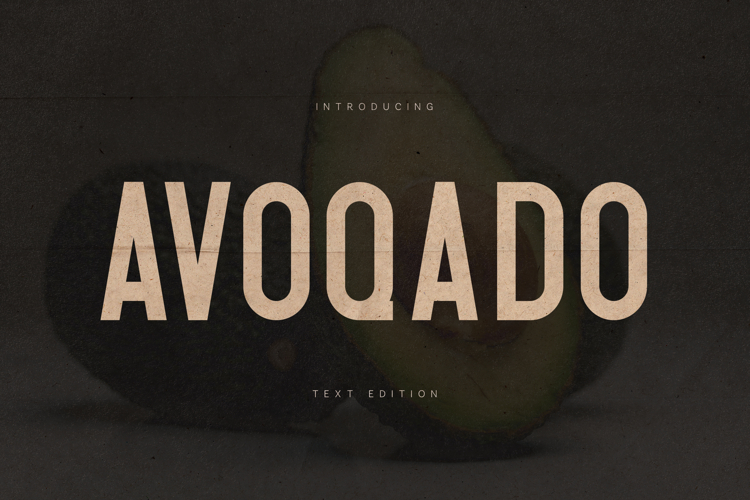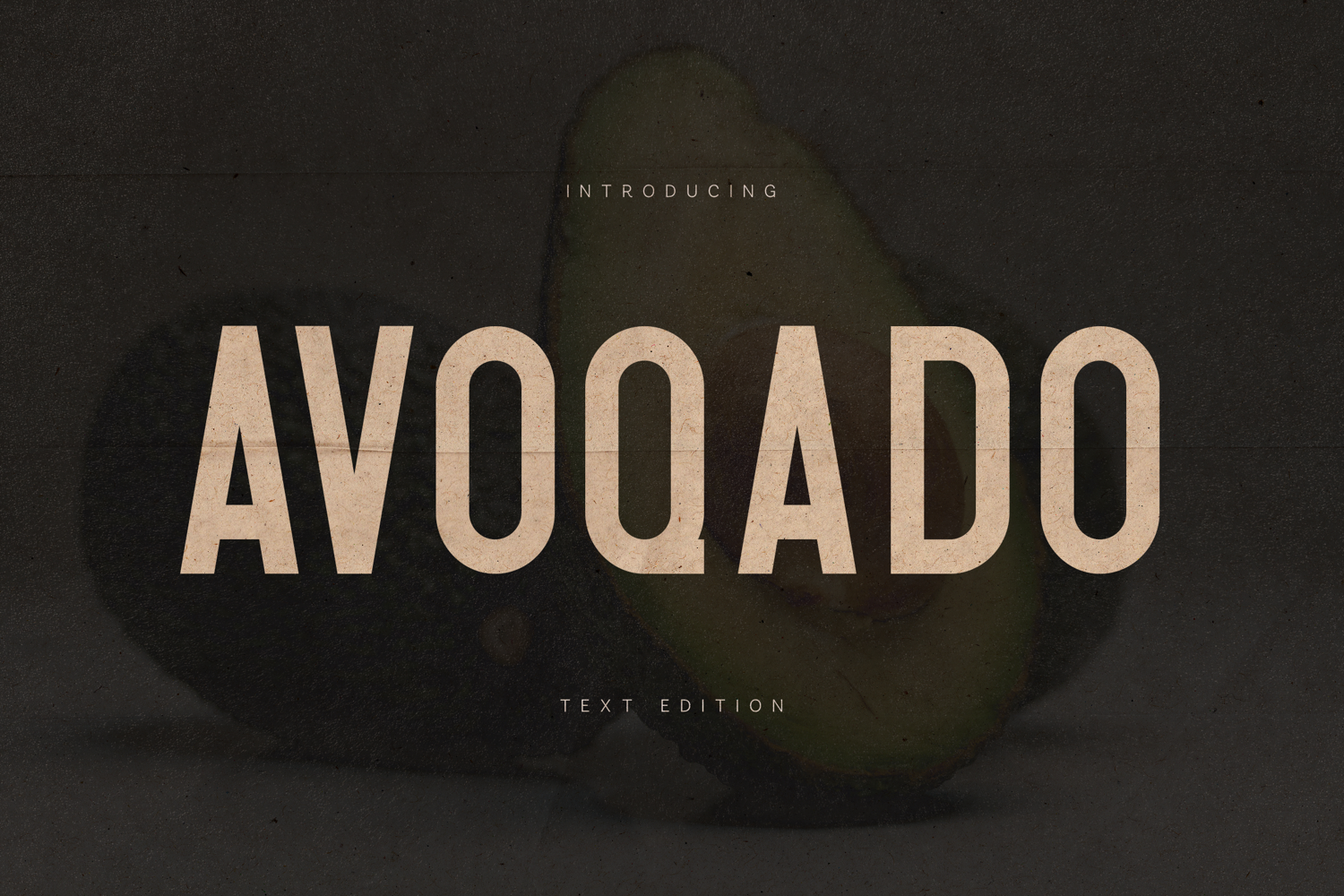
Avoqado Bold Modern Sans Serif Font
Avoqado is a bold modern sans-serif typeface designed for strong, clean, and contemporary typography. Built with balanced proportions and confident letterforms, the font delivers excellent readability while maintaining a distinctive personality.
Its geometric structure and slightly condensed appearance make it highly versatile for a wide range of design applications. Whether used for branding, editorial layouts, posters, packaging, or digital content, Avoqado provides a clear and powerful typographic voice.
The font performs especially well in headlines, logos, and large display compositions where its bold shapes and confident rhythm create strong visual impact. At the same time, its clean construction allows it to remain readable and effective in supporting text and modern layouts.
Avoqado includes uppercase and lowercase characters, numbers, punctuation, and extended multilingual language support, making it suitable for international design projects.
Perfect for branding, editorial design, posters, packaging, social media graphics, and logo creation, Avoqado helps designers create modern, confident, and memorable typography.